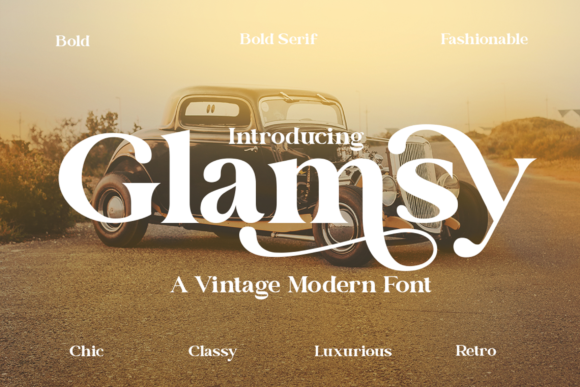
Welcome to the world of Glamsy Font, an exquisite serif font family that will ignite your creativity and elevate your designs! Step into a realm of elegance and style where your words will dance with grace and sophistication. Glamsy is the perfect choice for those seeking a font that exudes both beauty and functionality.
Picture your wedding invitations adorned with Glamsy's delicate serifs, each letter flowing seamlessly into the next, creating an air of timeless romance. Envision thank-you cards that radiate warmth and appreciation, with Glamsy's graceful curves adding a touch of heartfelt elegance. Let your quotes shine with a new brilliance, as Glamsy's refined lines lend an air of wisdom and inspiration.
Unleash your creativity with Glamsy's versatility. Craft greeting cards that capture the essence of joy and celebration, or design logos that exude professionalism and sophistication. Glamsy's adaptability knows no bounds, making it the ideal choice for business cards, branding materials, and any project that demands a touch of distinction.
Immerse yourself in a world where legibility meets artistry. Glamsy's meticulously crafted characters ensure clarity and readability, even in the most intricate designs. Its dark background compatibility makes it the perfect choice for projects where contrast is key, adding a touch of drama and intrigue.